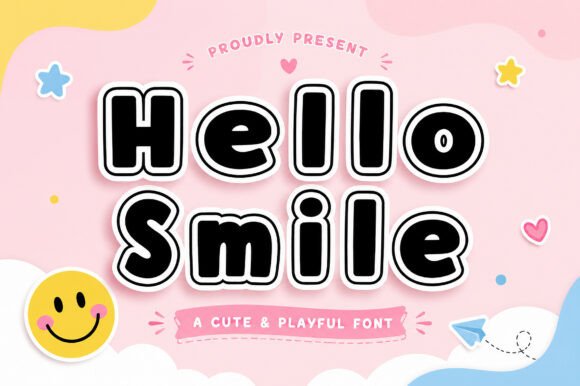
Bring Joy to Your Projects with Hello Smile
When you're working on a design meant to connect with a younger audience or simply evoke a sense of happiness, the typography you choose does more than just display words—it sets the emotional tone. This is where finding the right creative font becomes crucial. If your current toolbox feels a bit too serious or corporate, it might be time to introduce a typeface that specializes in cheer. Hello Smile is a premium font specifically engineered to bring that "feel-good" factor to your work. It isn't just a collection of letters; it is a visual asset designed to be cute, playful, and instantly engaging.
As a display font, Hello Smile prioritizes personality over the neutrality you might find in a standard sans serif font or serif font. It features bold, rounded letterforms and smooth curves that mimic the softness of balloons or freshly baked cookies. This gives it a friendly, approachable personality that stands out immediately. Unlike a script font or handwritten font that can sometimes be difficult to decipher, Hello Smile maintains a clean, bubbly style. It offers the whimsy of hand-drawn art with the legibility of structured modern typography. This balance is essential for ensuring your message gets across clearly, whether it is printed on a poster or viewed on a mobile screen.
The Power of Bubbly Branding and Visual Identity
For entrepreneurs and small business owners, your brand identity is your handshake with the customer. If you are building a brand that targets families, children, or the pet market, or if you simply want your business to feel more accessible than your competitors, Hello Smile can be a cornerstone of your logo design strategy. The font’s rounded geometry naturally builds trust. Psychologically, sharp angles can feel aggressive or urgent, while round shapes feel safe and welcoming. By using Hello Smile for your headers or logos, you are subconsciously telling your audience that your brand is friendly and easy to deal with.
However, effective brand identity relies on consistency. Once you select this typeface, you should aim to use it across all customer touchpoints. This includes digital assets like social media graphics and web design headers, as well as physical materials like packaging design and business cards. Because Hello Smile is a display font, it works best for headlines, sub-headers, and call-outs rather than long blocks of body text. For the best visual hierarchy, pair it with a highly legible, neutral body font—perhaps a classic sans serif font like Open Sans or Roboto. This font pairing allows the personality of Hello Smile to shine without overwhelming the reader, ensuring your editorial design remains professional.
Practical Applications: From Digital Screens to Physical Crafts
The versatility of Hello Smile extends far beyond traditional graphic design. It has become a favorite among crafters and hobbyists, particularly those using cutting machines like Cricut or Silhouette. The smooth, continuous curves of the letters make it an excellent choice for vinyl decals and heat transfers. When you are creating stickers or sublimation products, you need a font that cuts cleanly and weeds easily. The bold weight of Hello Smile ensures that details aren’t lost, making it a reliable design asset for physical merchandise.
For digital creators and marketers, the font injects life into social media graphics. In a crowded feed, a standard corporate font often gets scrolled past. A playful header in Hello Smile can stop the scroll, particularly for content related to lifestyle, parenting, education, or entertainment. It is also highly effective for packaging design, especially for products targeting a younger demographic or the "gifting" market. Imagine a bakery box, a toy package, or a cosmetics line aimed at teens; the bubbly nature of this creative font instantly communicates the product's vibe.
Furthermore, consider the world of events and personal celebrations. Invitations, greeting cards, and party decorations require typography that feels festive. Hello Smile excels here, offering a charming touch that feels handcrafted yet polished. Whether you are designing a birthday banner or a wedding welcome sign for a casual outdoor event, the font provides the necessary warmth.
Evaluating Fit and Professional Implementation
While Hello Smile is a powerful tool, professional designers know that context is everything. Before committing to this font, evaluate the specific project fit. Ask yourself: Does the tone of the content match the font's personality? If you are designing a legal document or a corporate annual report, a playful display font is inappropriate. However, for a children’s book cover, a classroom worksheet, or a fun logo, it is the perfect choice.
When working with this premium font, pay close attention to readability settings. Because of its decorative nature, you may need to increase the tracking (letter spacing) slightly if you use it in smaller sizes. Always test your font pairing in context—place your Hello Smile header next to your chosen body text to ensure the contrast in style is intentional and pleasing to the eye. Check the included font files; many commercial font packages include different weights or stylistic alternates that can add even more variety to your work.